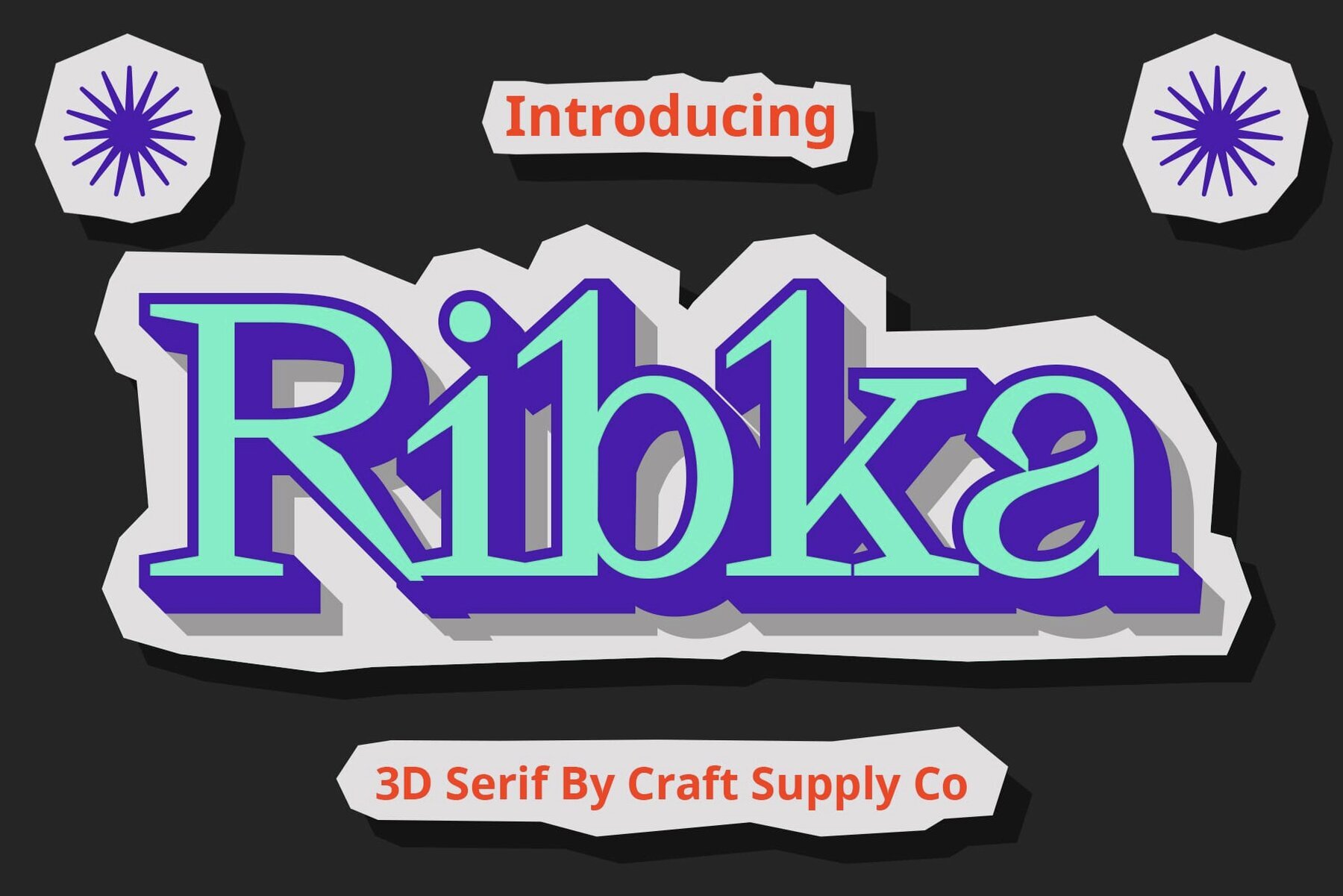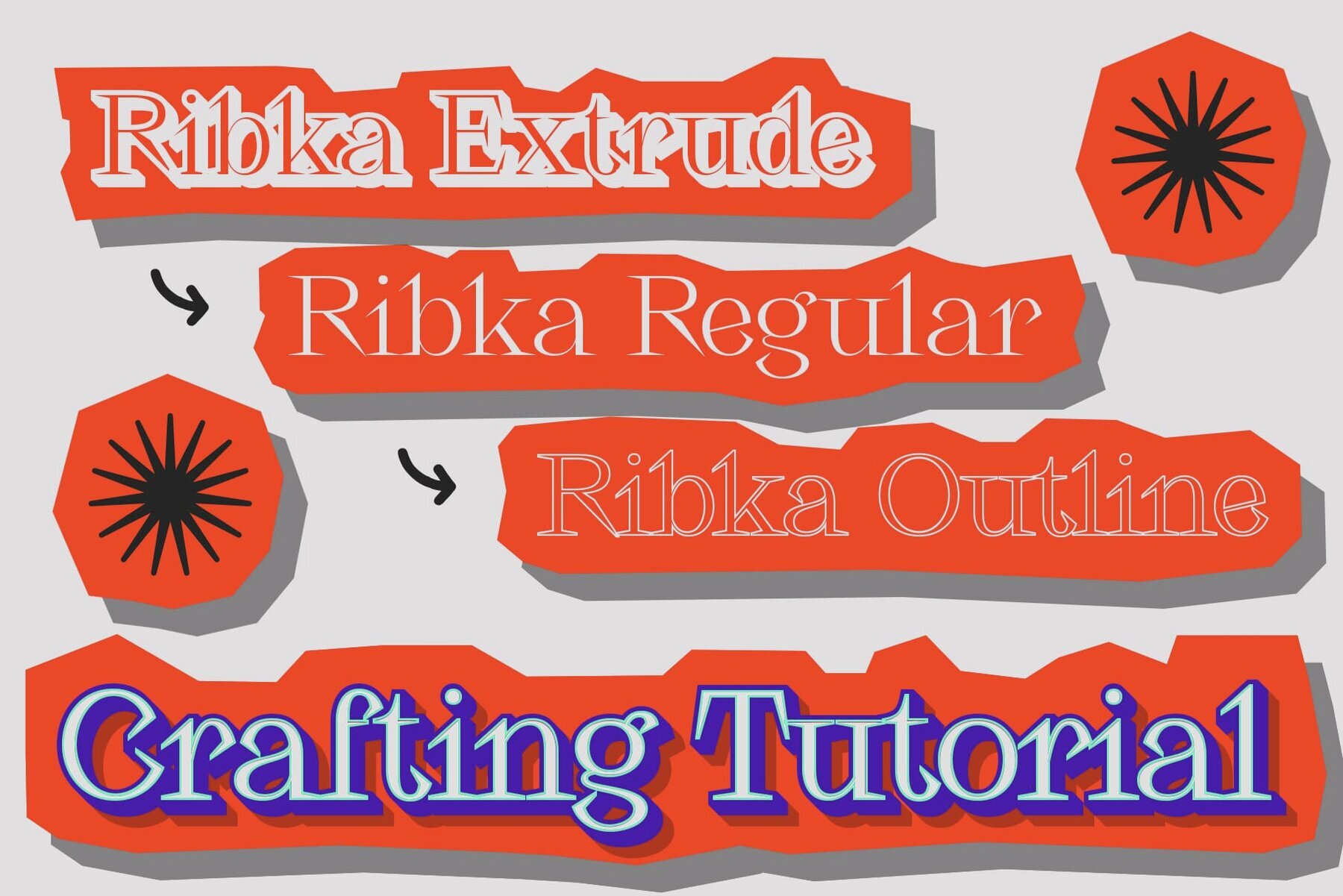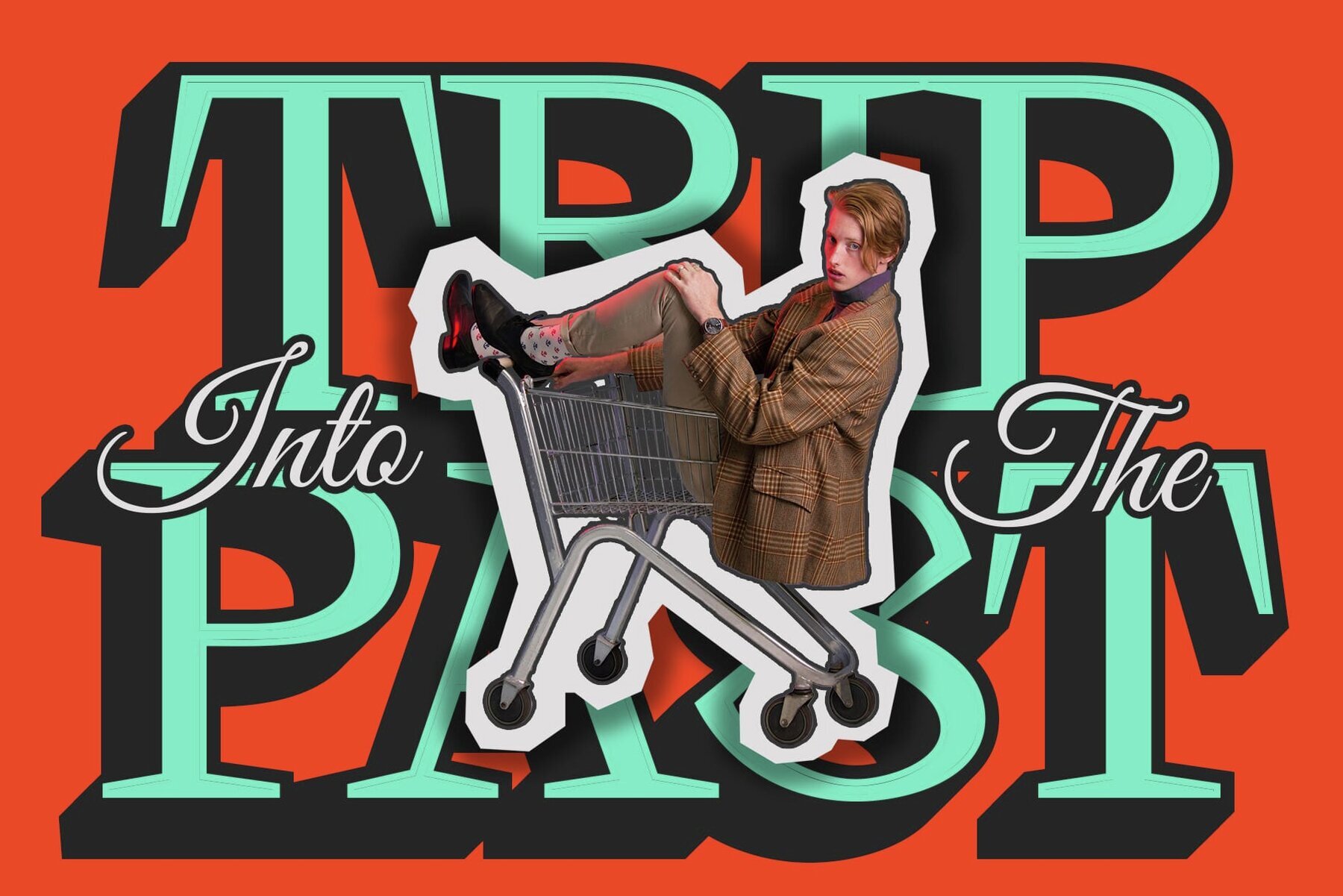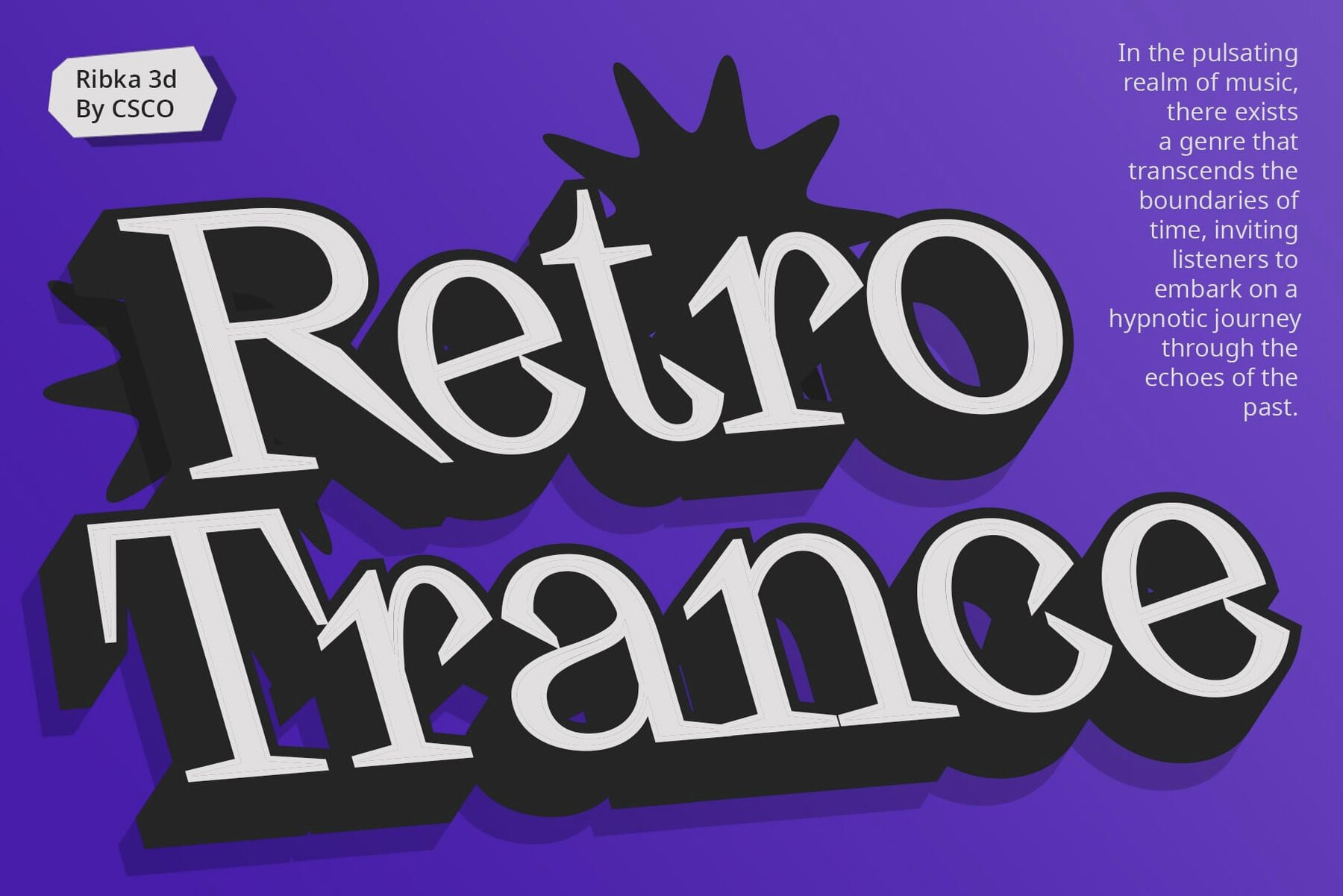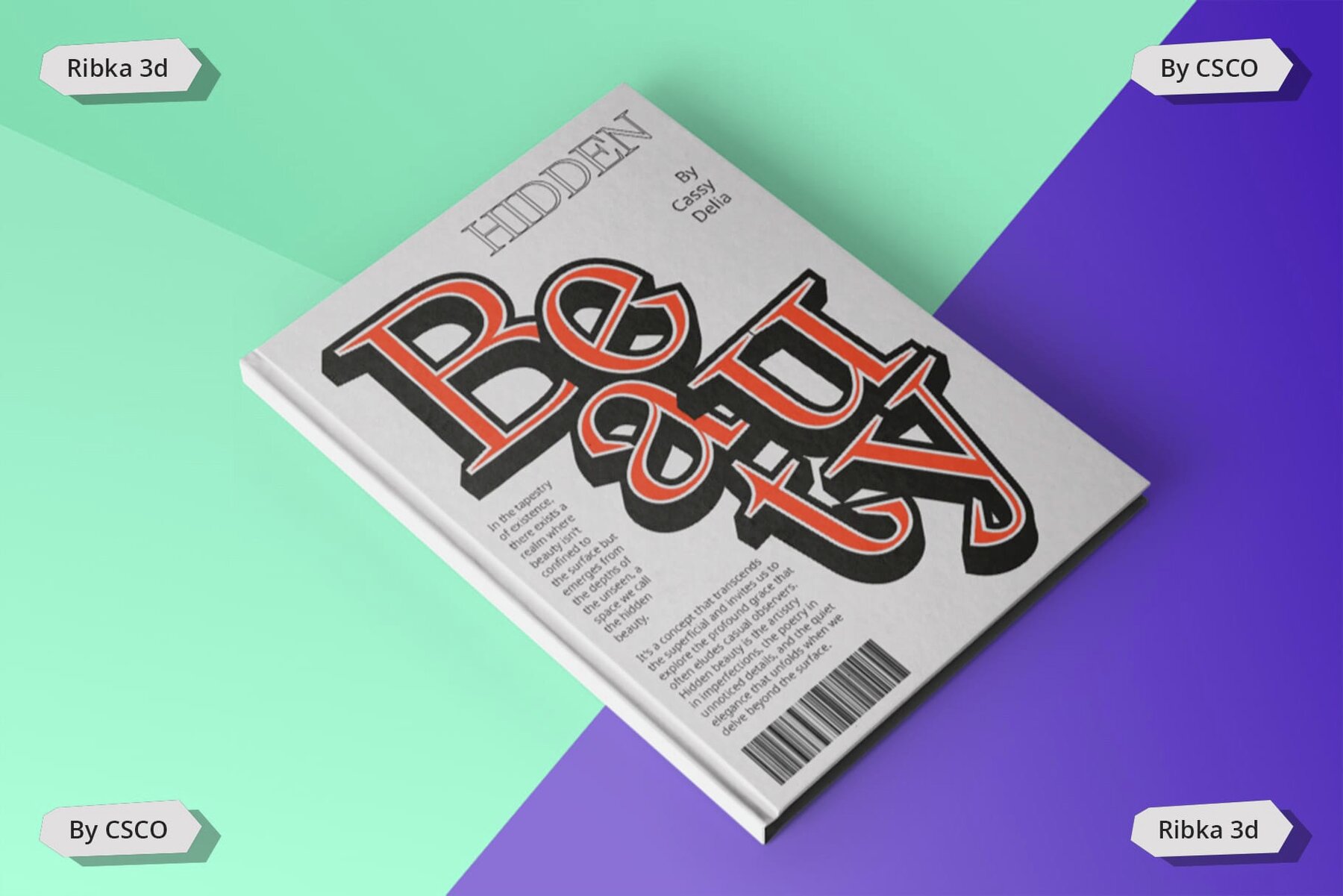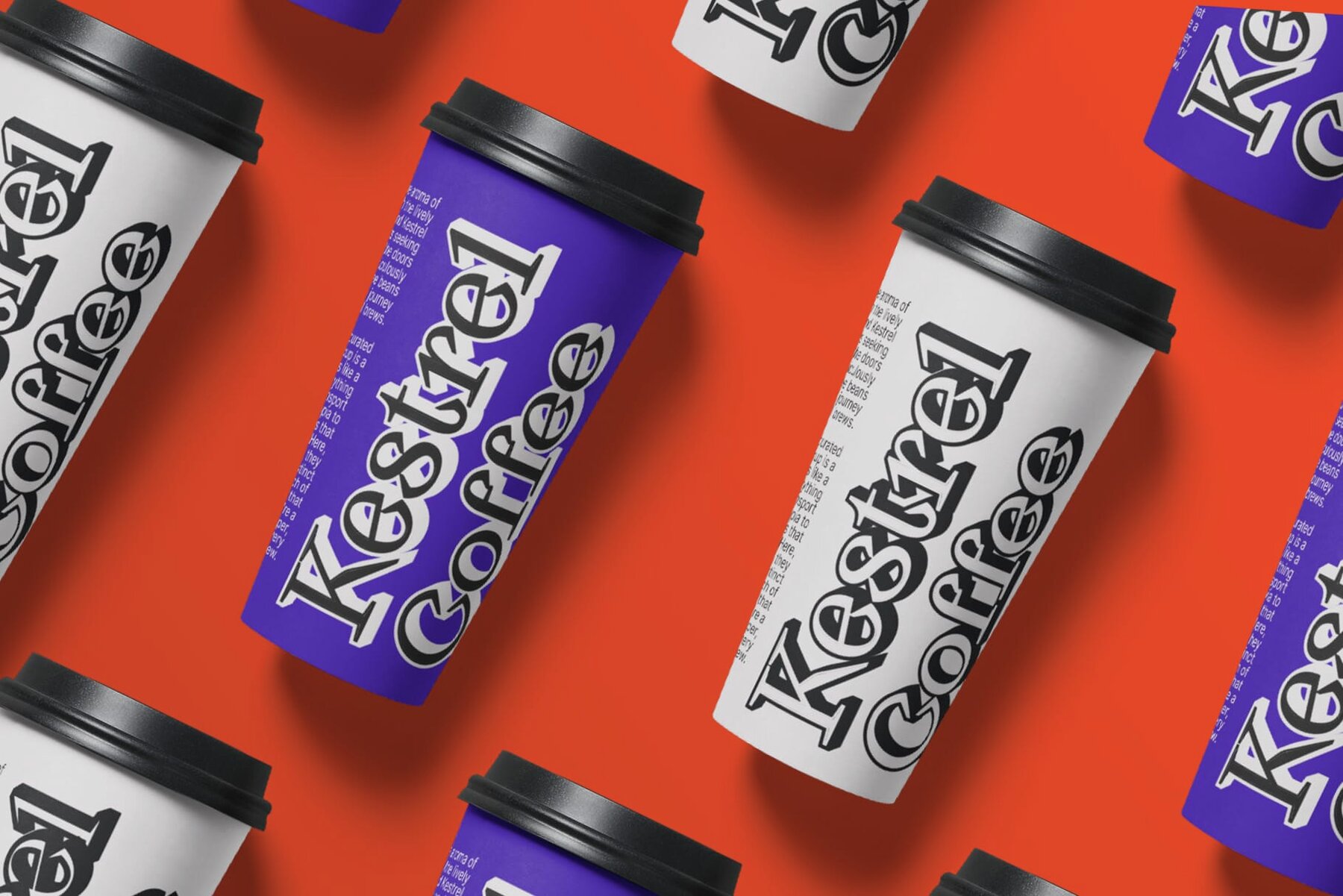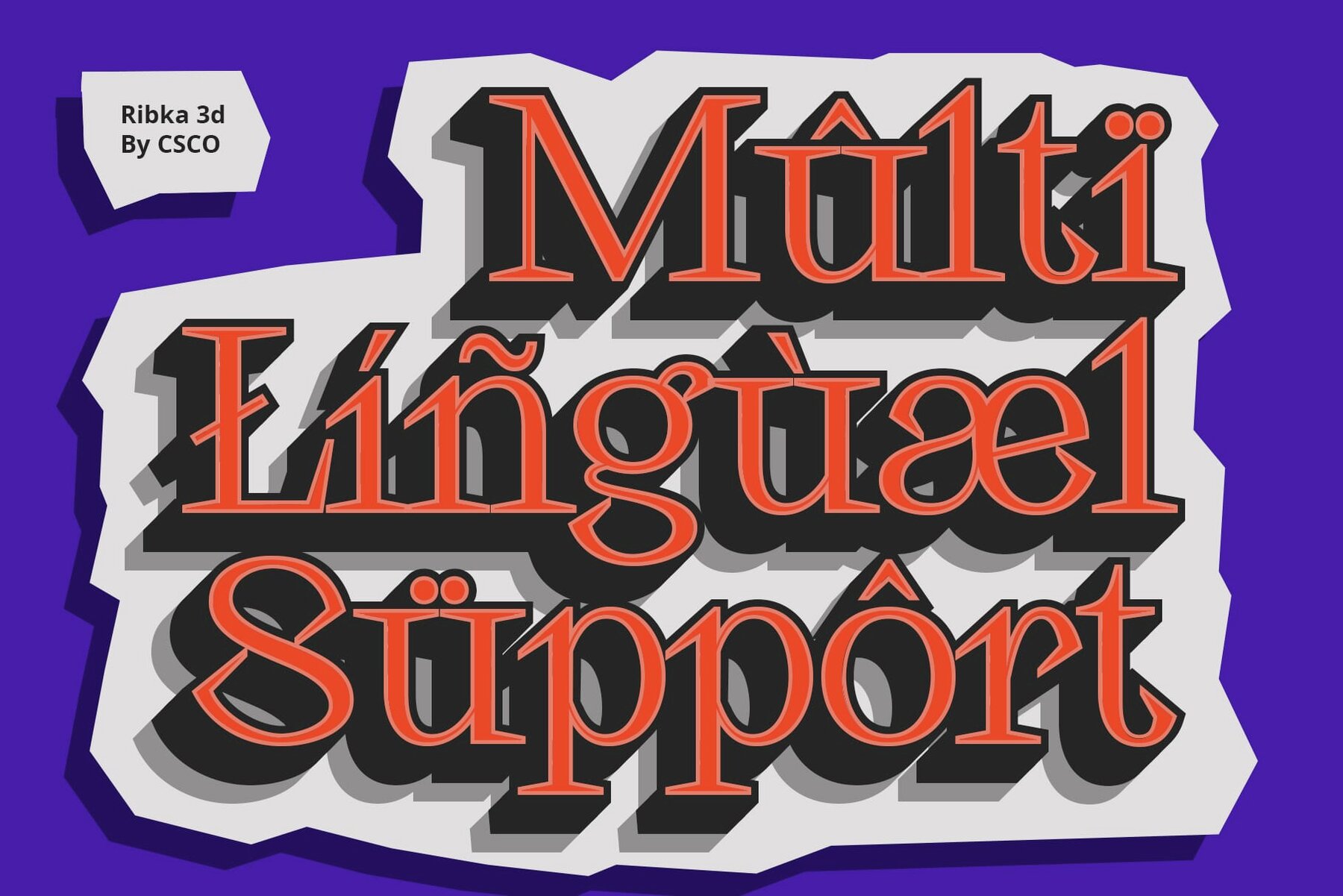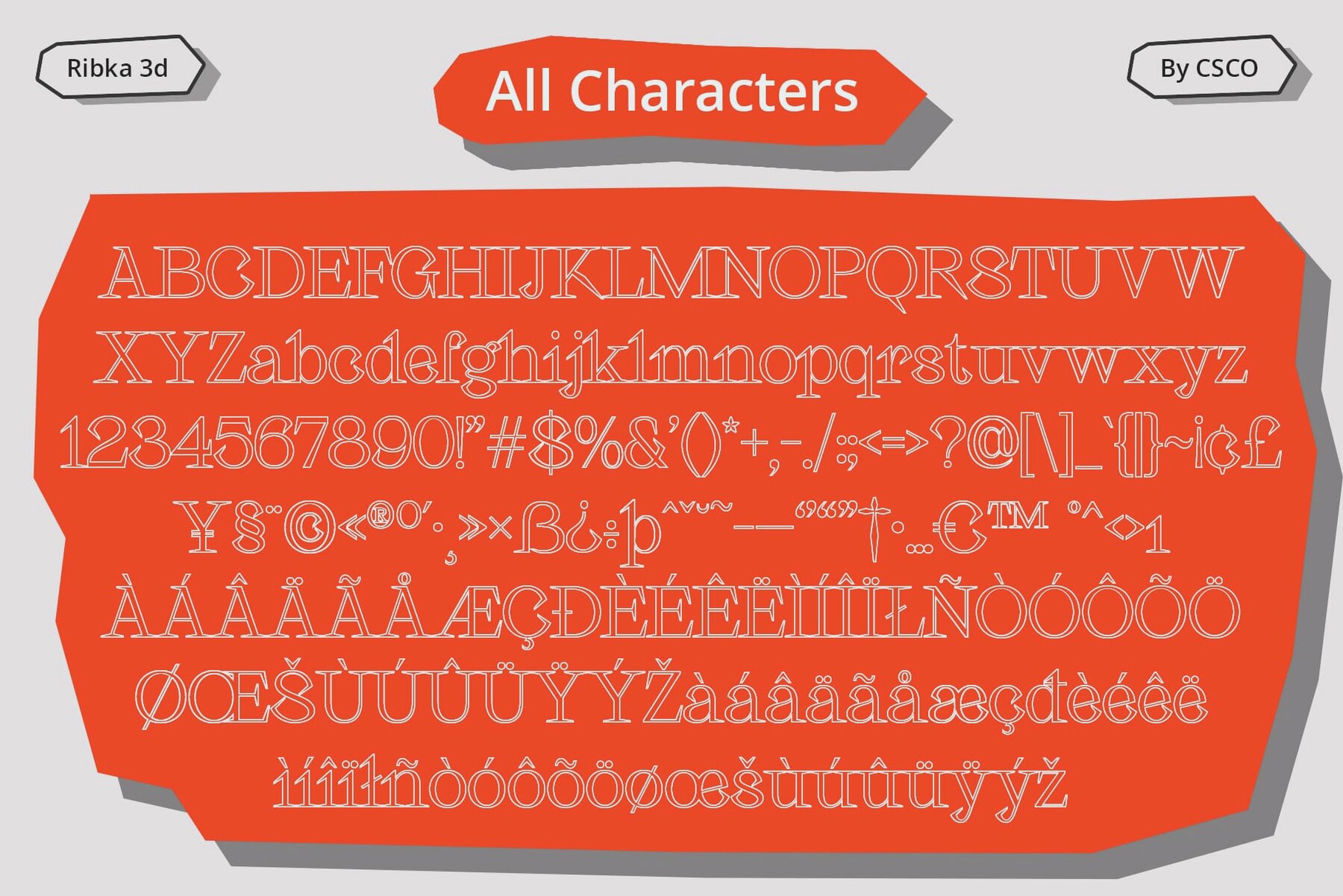
Ribka 3D Font
Delve into the elegance of Ribka 3D, a font that blends pointed serifs with captivating depth, creating a unique identity for each letter. With a remarkable 3D effect, Ribka 3D transforms ordinary text into a visual masterpiece, offering both precision and depth for any design need. Perfect for both print and digital media, this font enhances editorial layouts and branding materials, making a lasting impact. Use this typeface without the need for specialized software. If you have inquiries or need assistance, please feel free to contact us. We appreciate your support in enhancing your creative projects!Ribka 3D: Precision and Depth in Typography